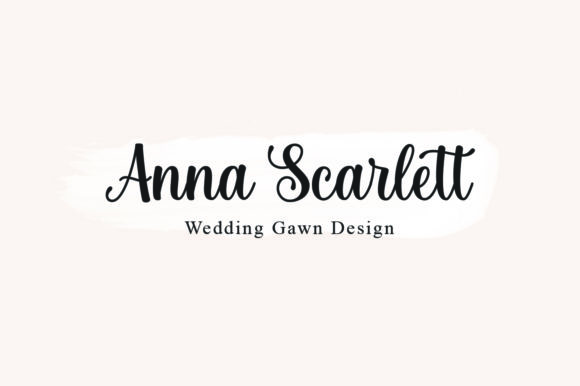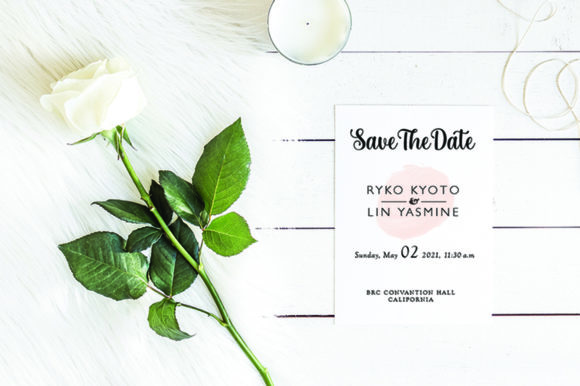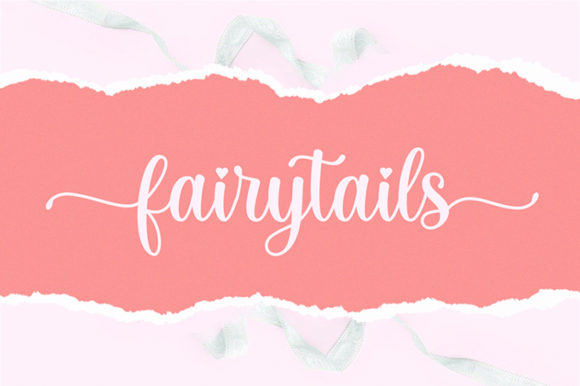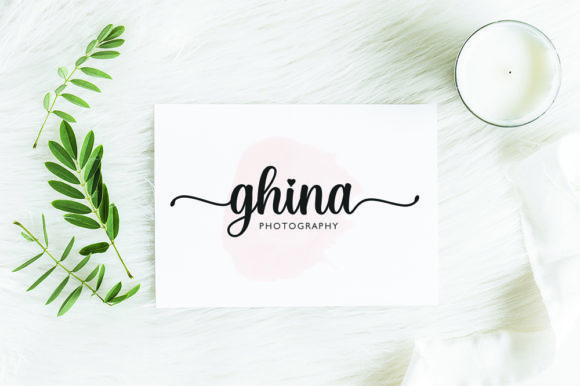
About Joseph Sophia Font
Joseph Sophia feels equally charming and elegant. It looks lovely on wedding invitations, thank you cards, quotes, greeting cards, logos, business cards and every other design which needs a handwritten touch.